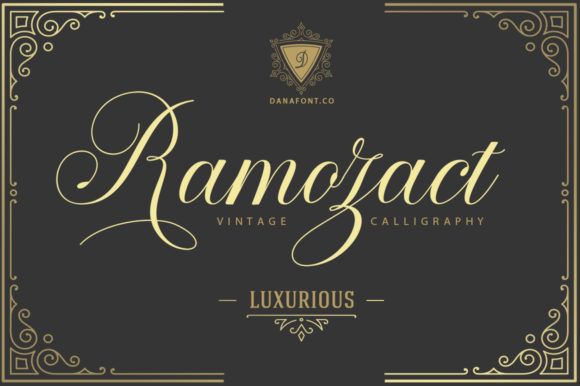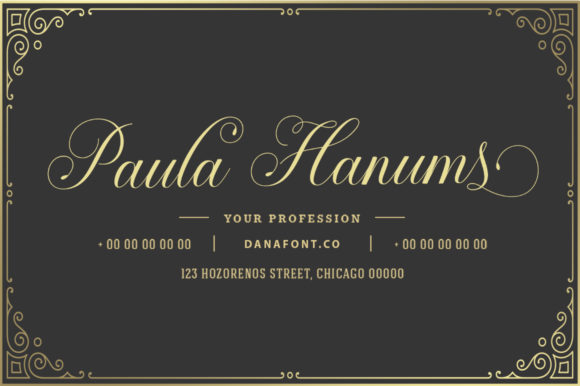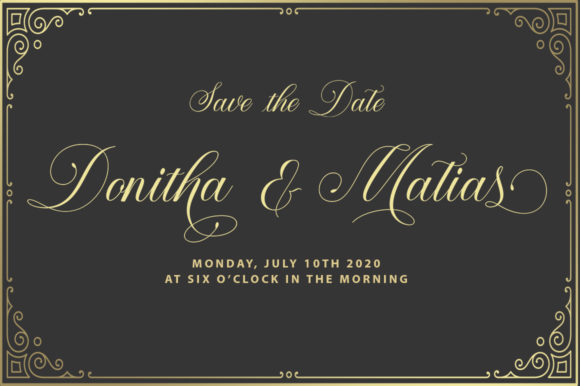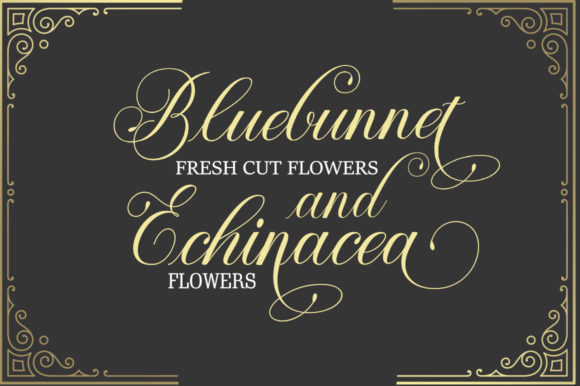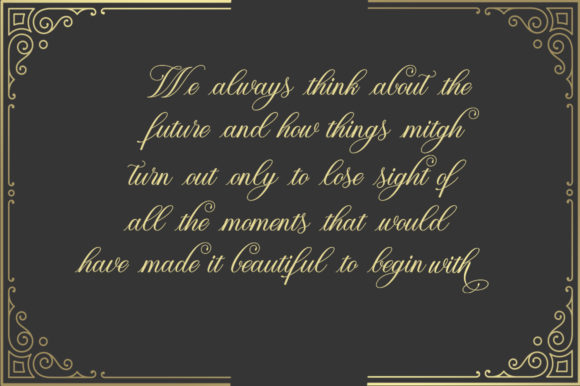
Ramozact Font
About Ramozact Font
Ramozact simplifies elegance into one truly outstanding handwritten font. It is inspired by classic typography and brings its own unique style to any design project. Ramozact is PUA encoded which means you can access all of the glyphs and swashes with ease! It features a varying baseline, smooth lines, gorgeous glyphs and stunning alternates.